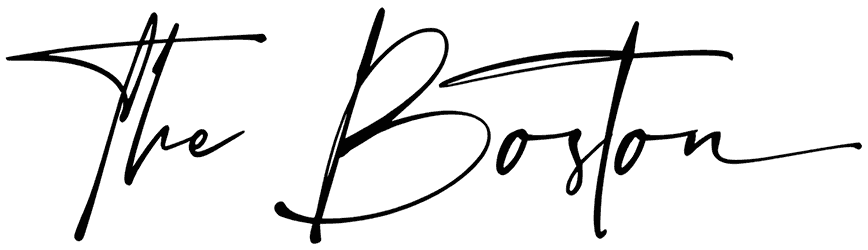
The Boston Font
Create a gentle and chic face, worthy of an original design by The Boston. As a calligraphy font, it can be suited for many items and make them unique. Try The Boston as a script font on your upcoming design such as logotype, flyers, handwritten quotes, and more others. Do your best and create elegant texts.